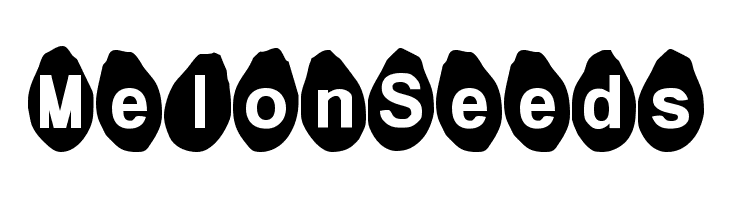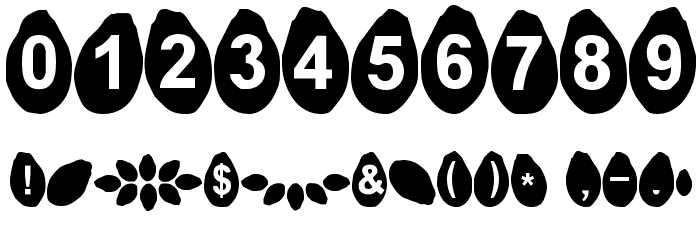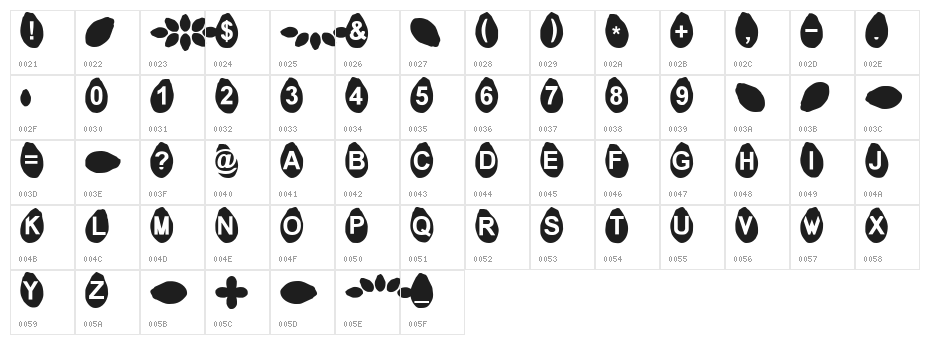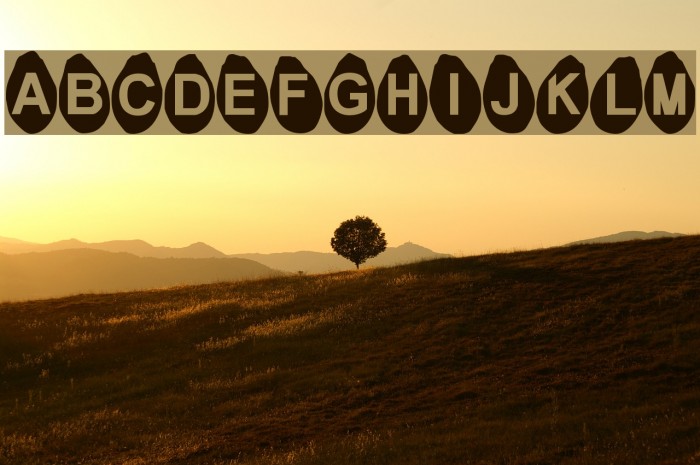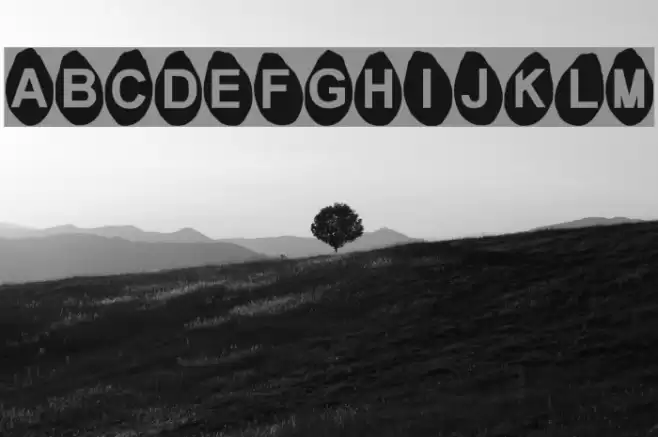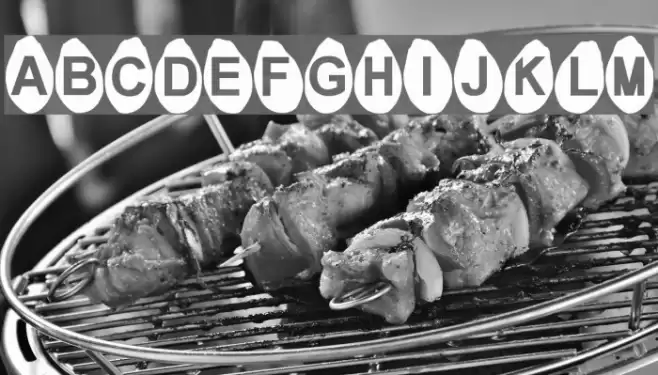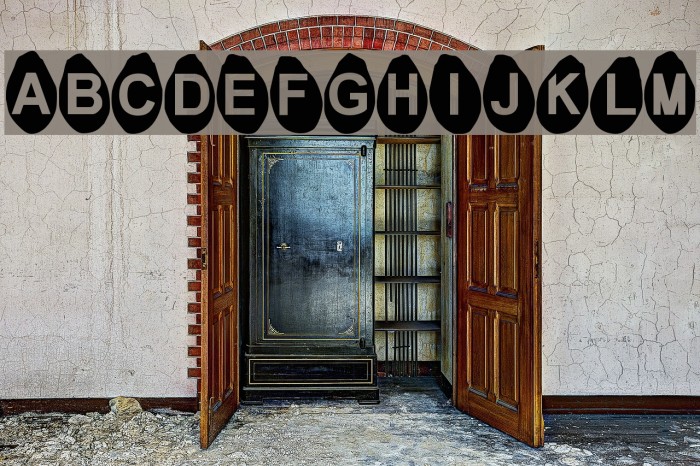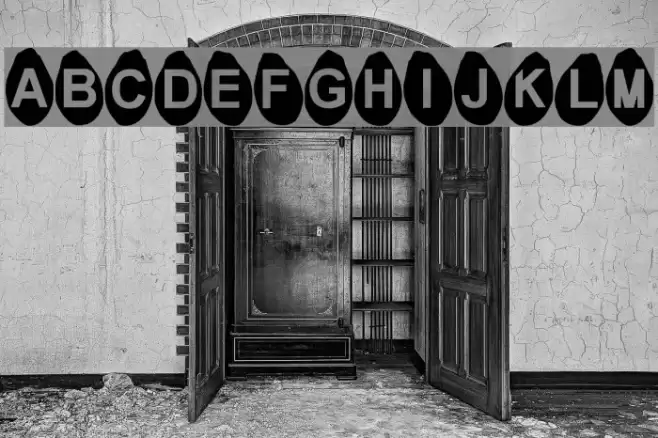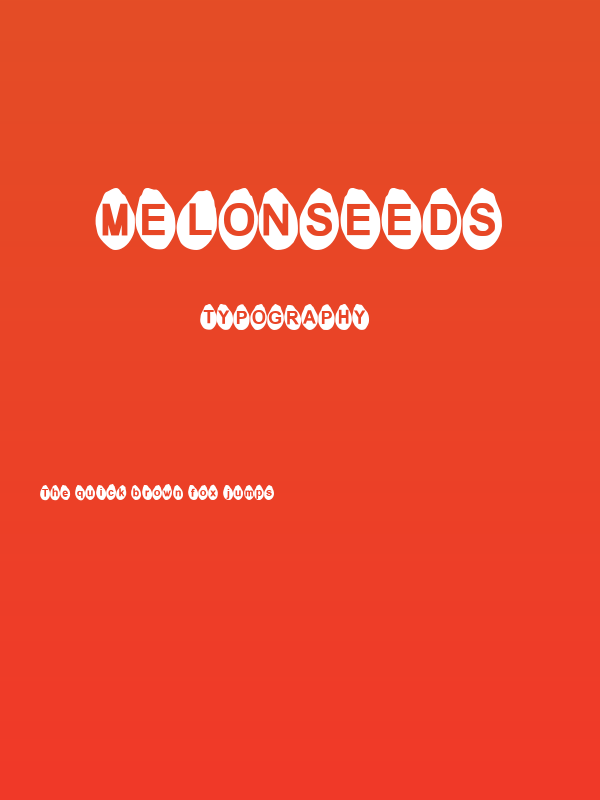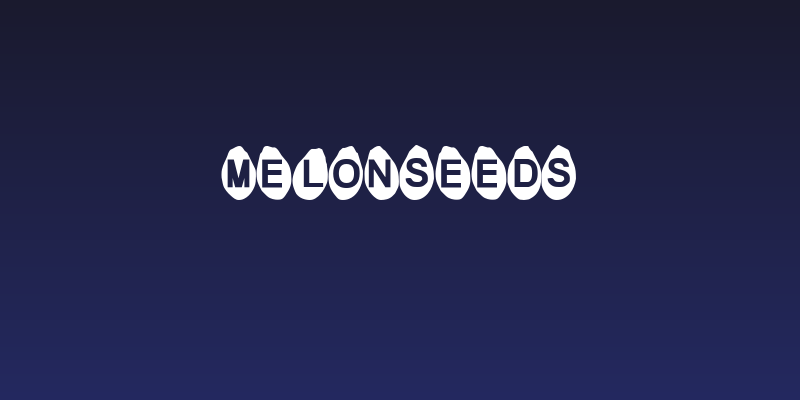
MelonSeeds Font
MelonSeeds Description
This playful and bold font features characters enclosed within shapes resembling melon seeds, creating a unique and eye-catching appearance. The letters are uppercase and lowercase, with numbers and a selection of special characters, all maintaining a consistent style. The boldness of the characters ensures high visibility, making it suitable for designs that require a strong visual impact. The rounded edges of the seed shapes add a friendly and approachable feel, while the uniformity in size and shape across all characters provides a cohesive look. This font is ideal for creative projects that aim to stand out and convey a sense of fun and originality.
| Overall Style | Playful, Creative |
| Proposed Projects | Ideal for children's book covers, playful branding, event posters, and creative packaging designs. |